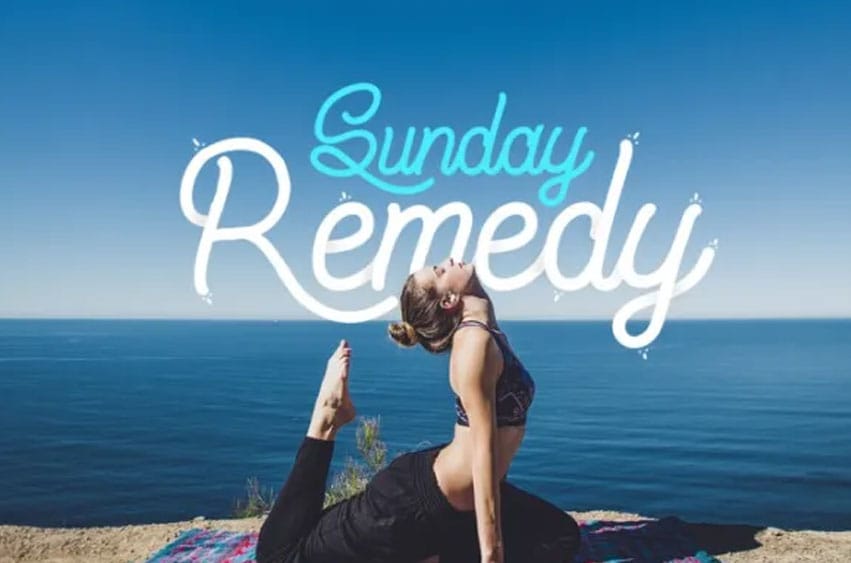
Vagabond Script Font We Provide You one of the best Vintage & Retro Hand Written Script. Best match for logos, header, Titles, Prints & other Creative process possibilities.
Create a Extraordinary Typography / lettering results by using Vagabond – Handmade Fonts